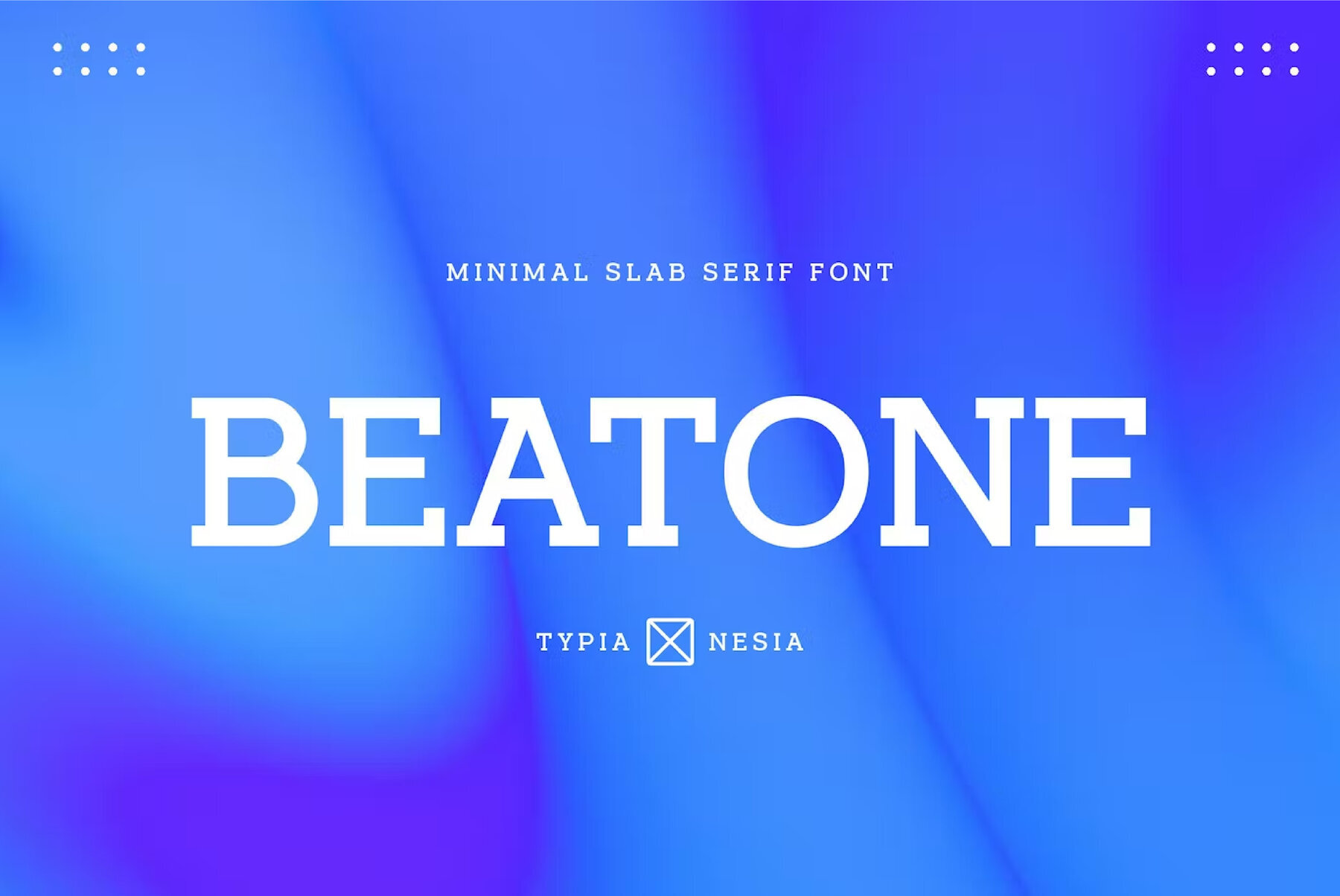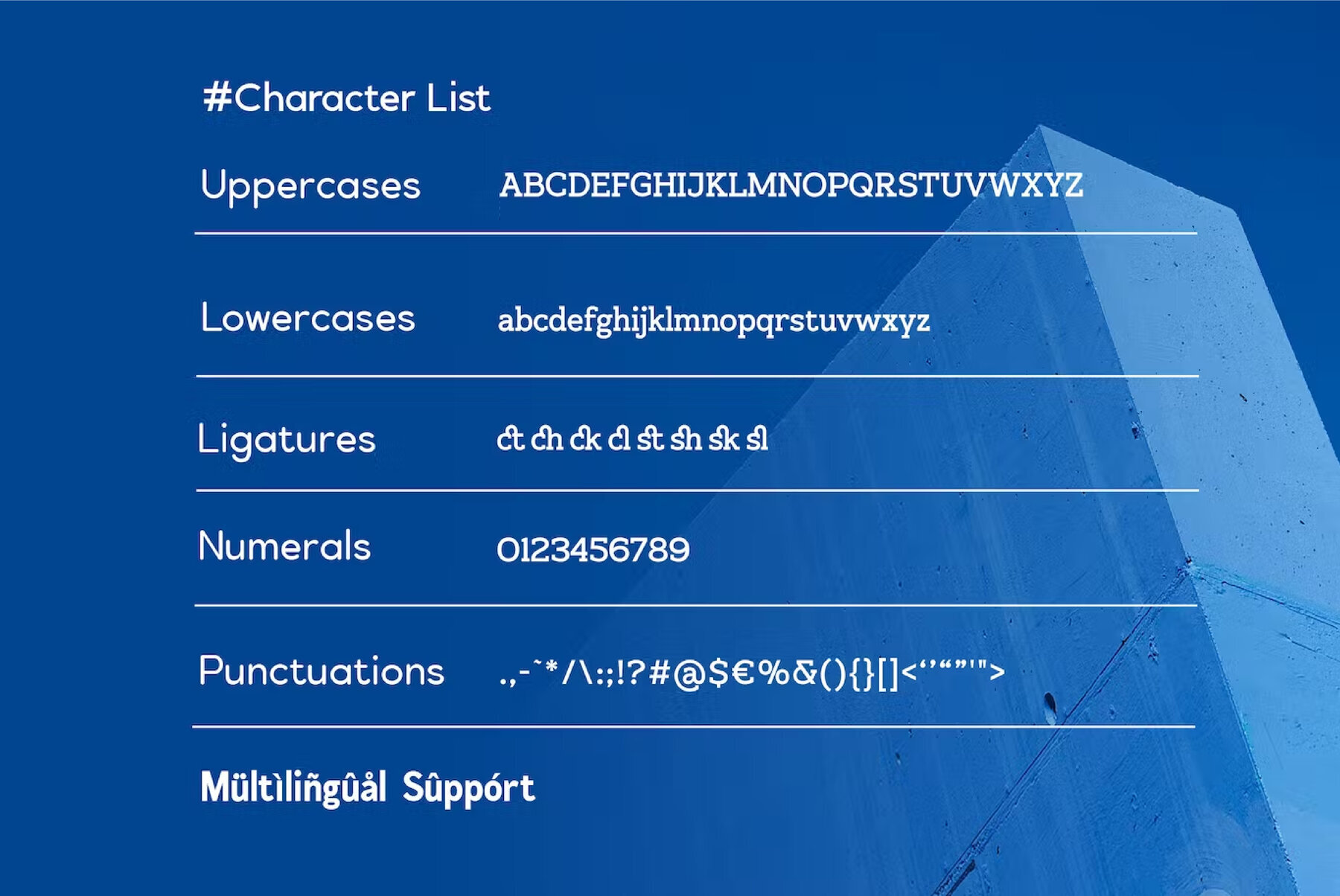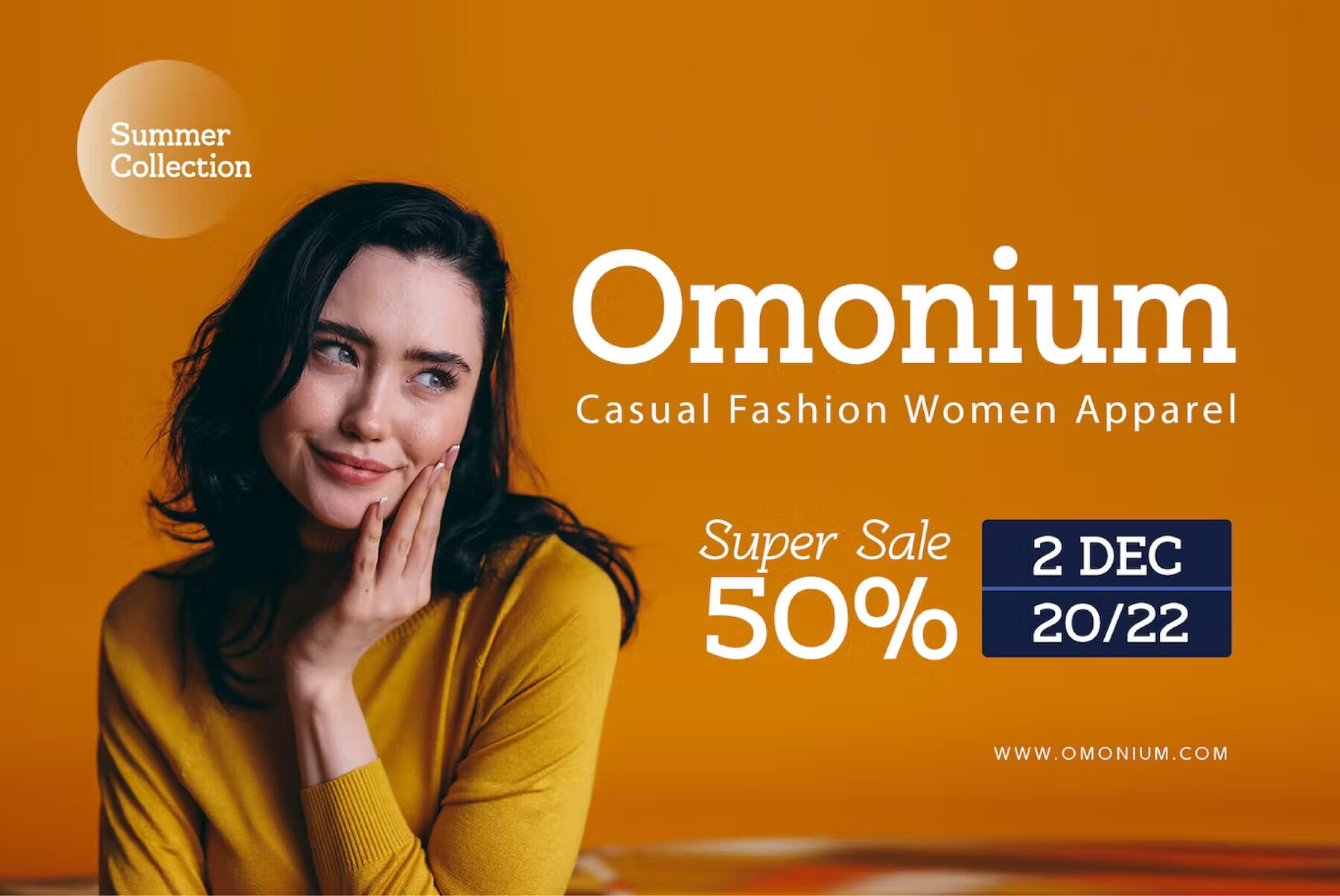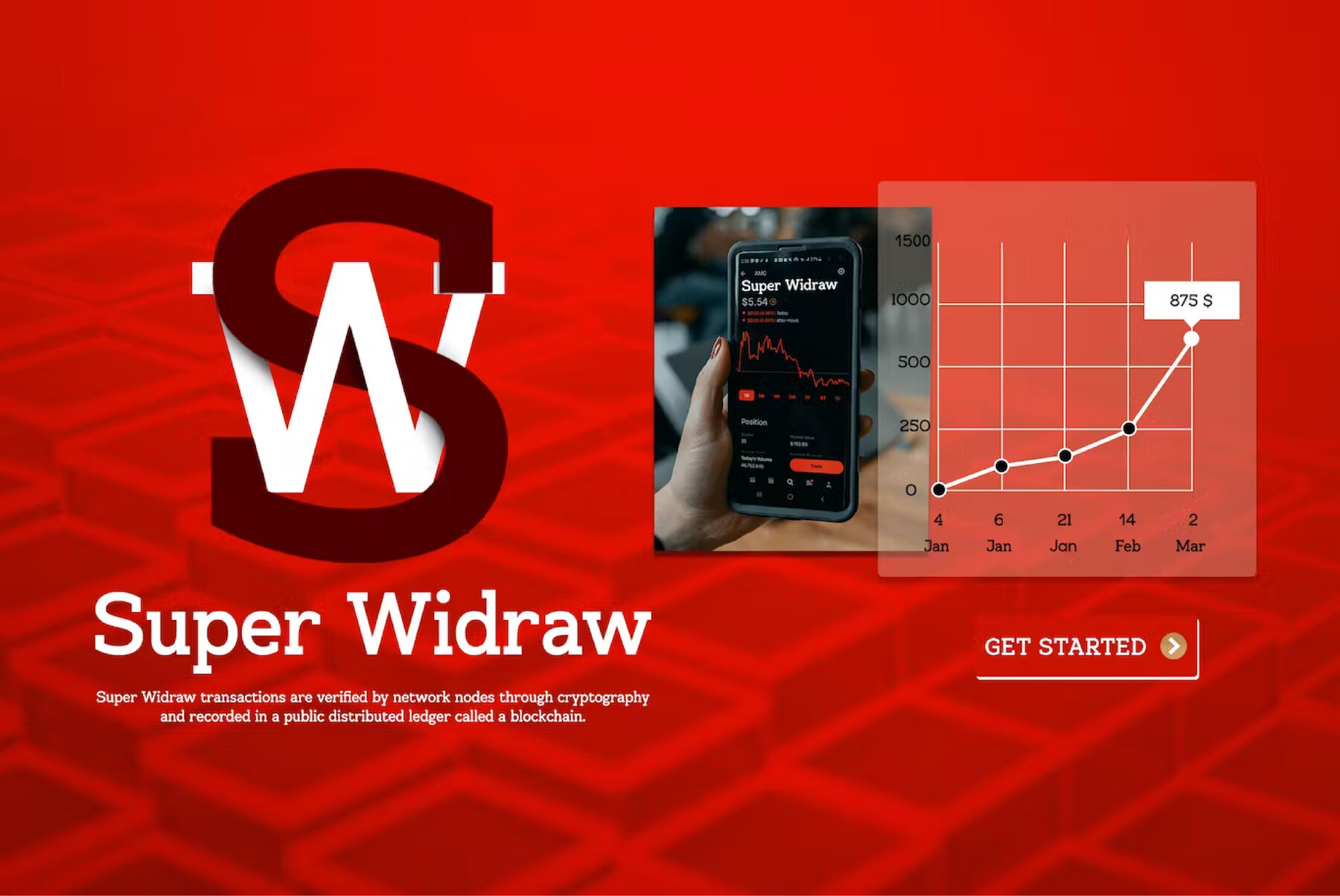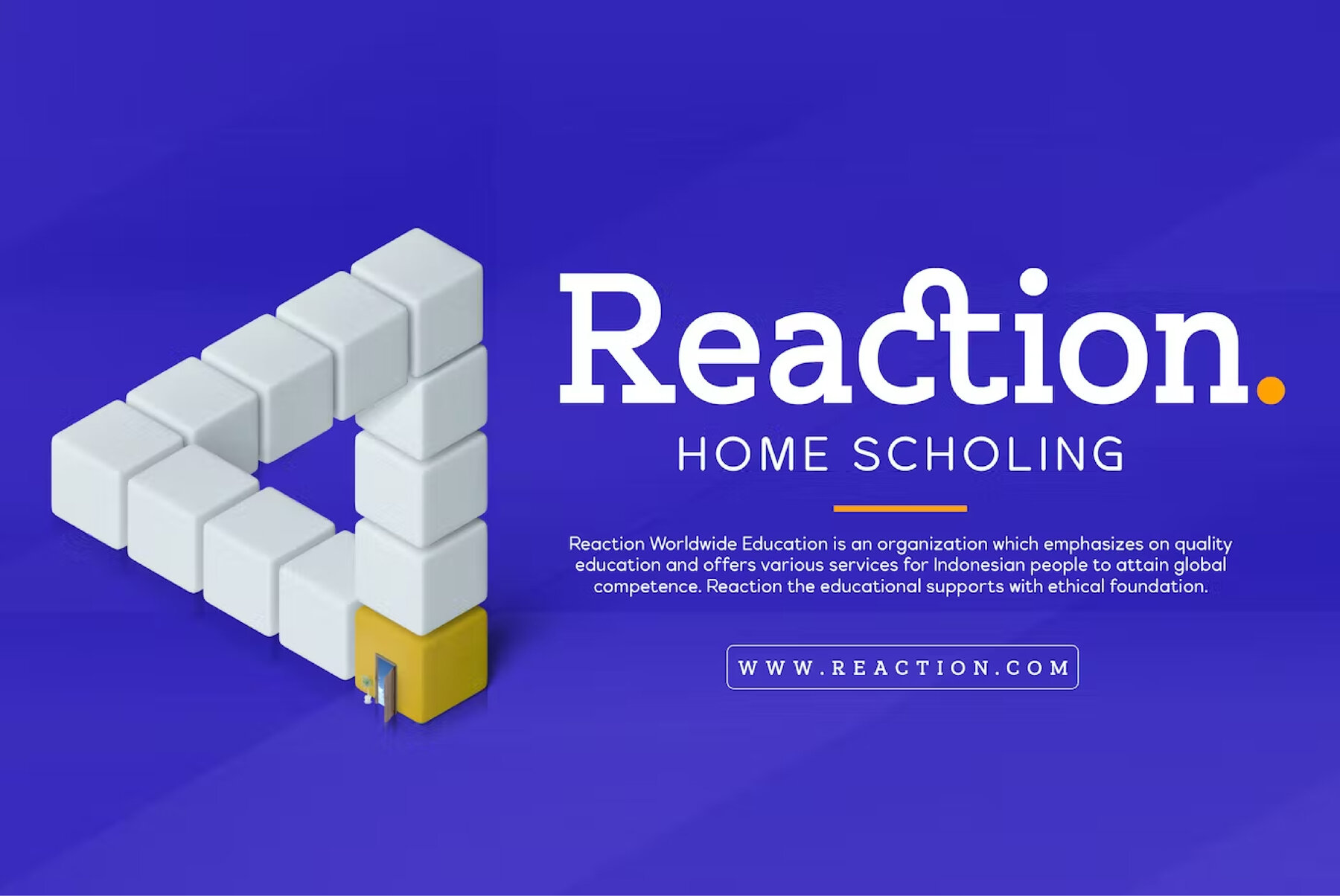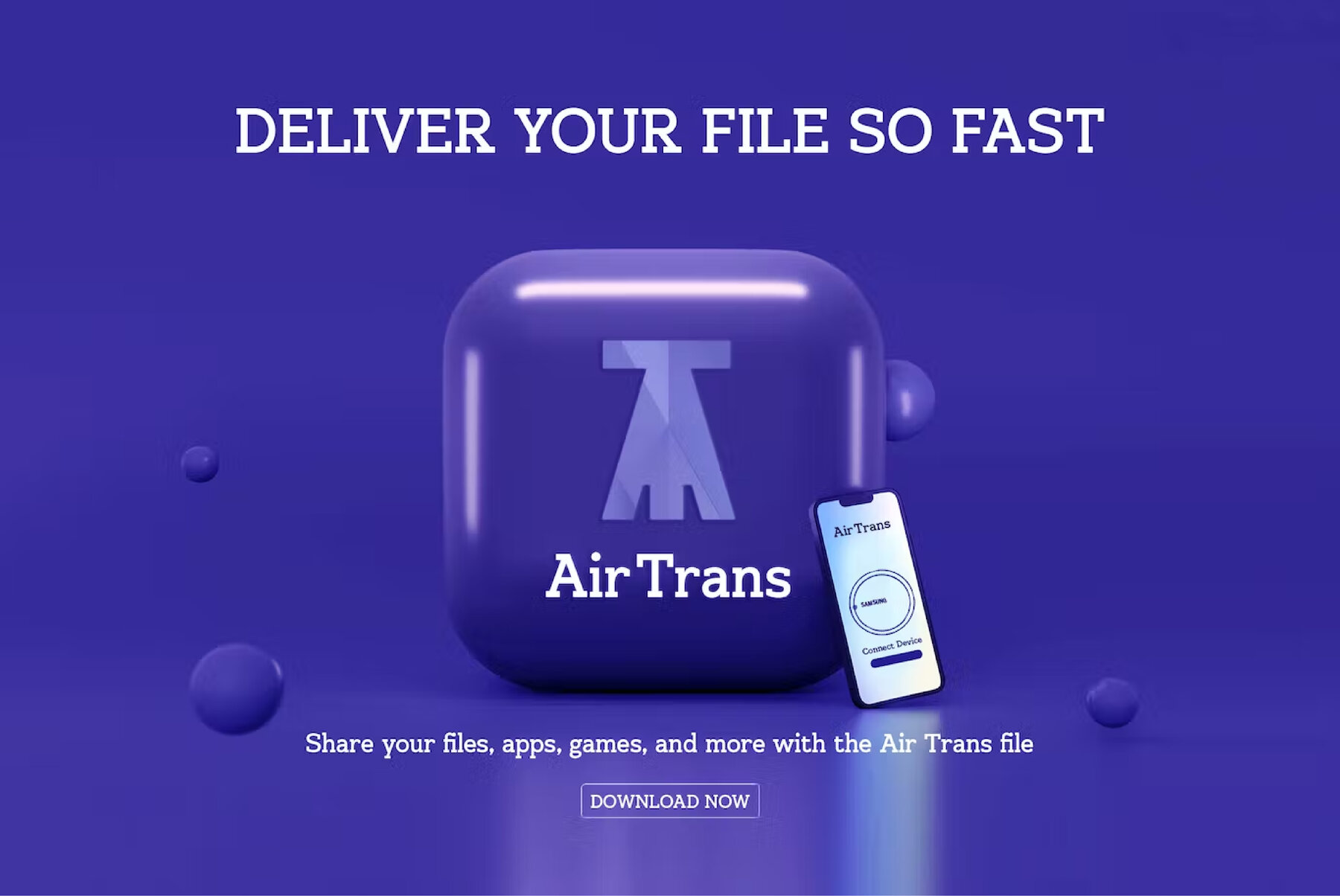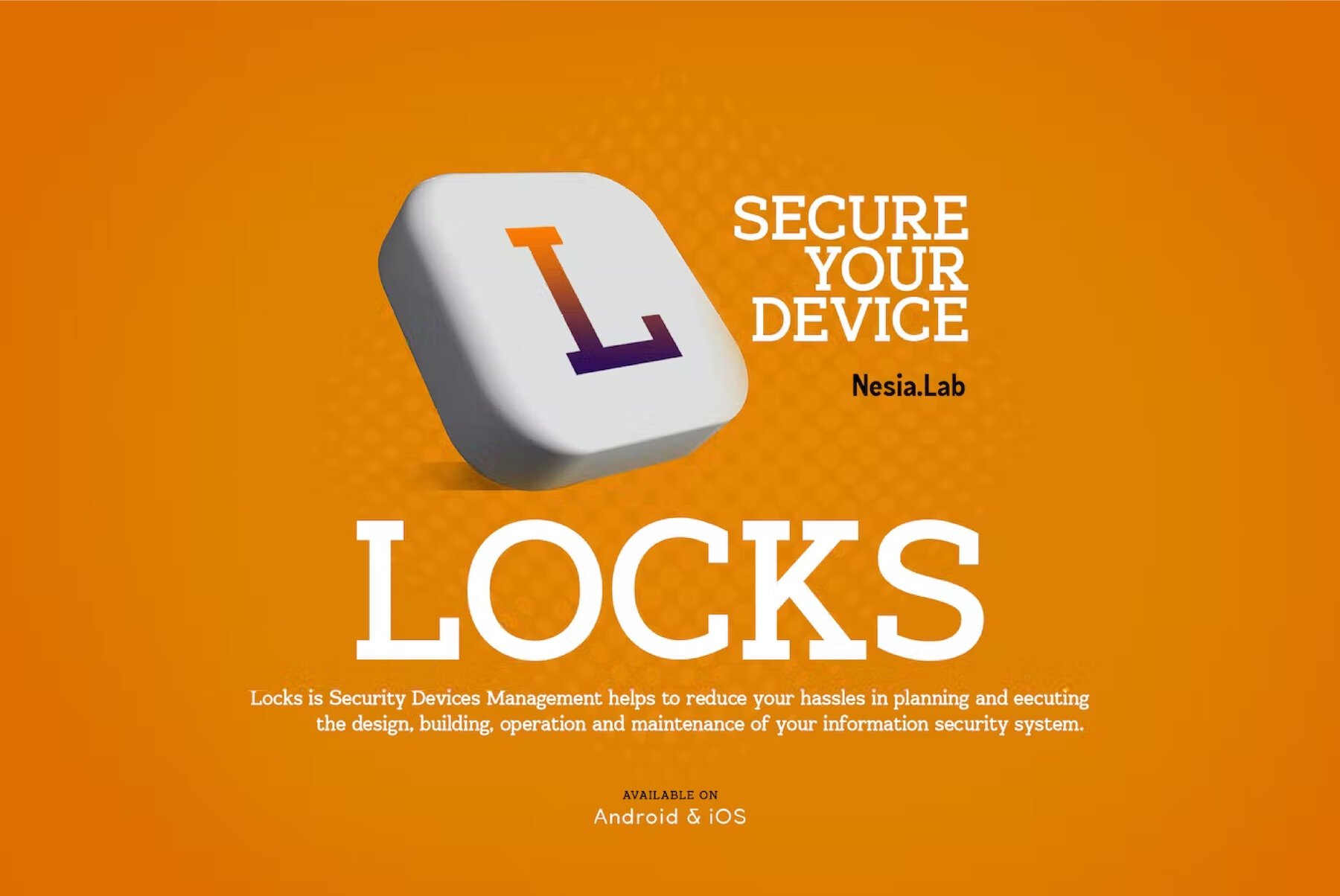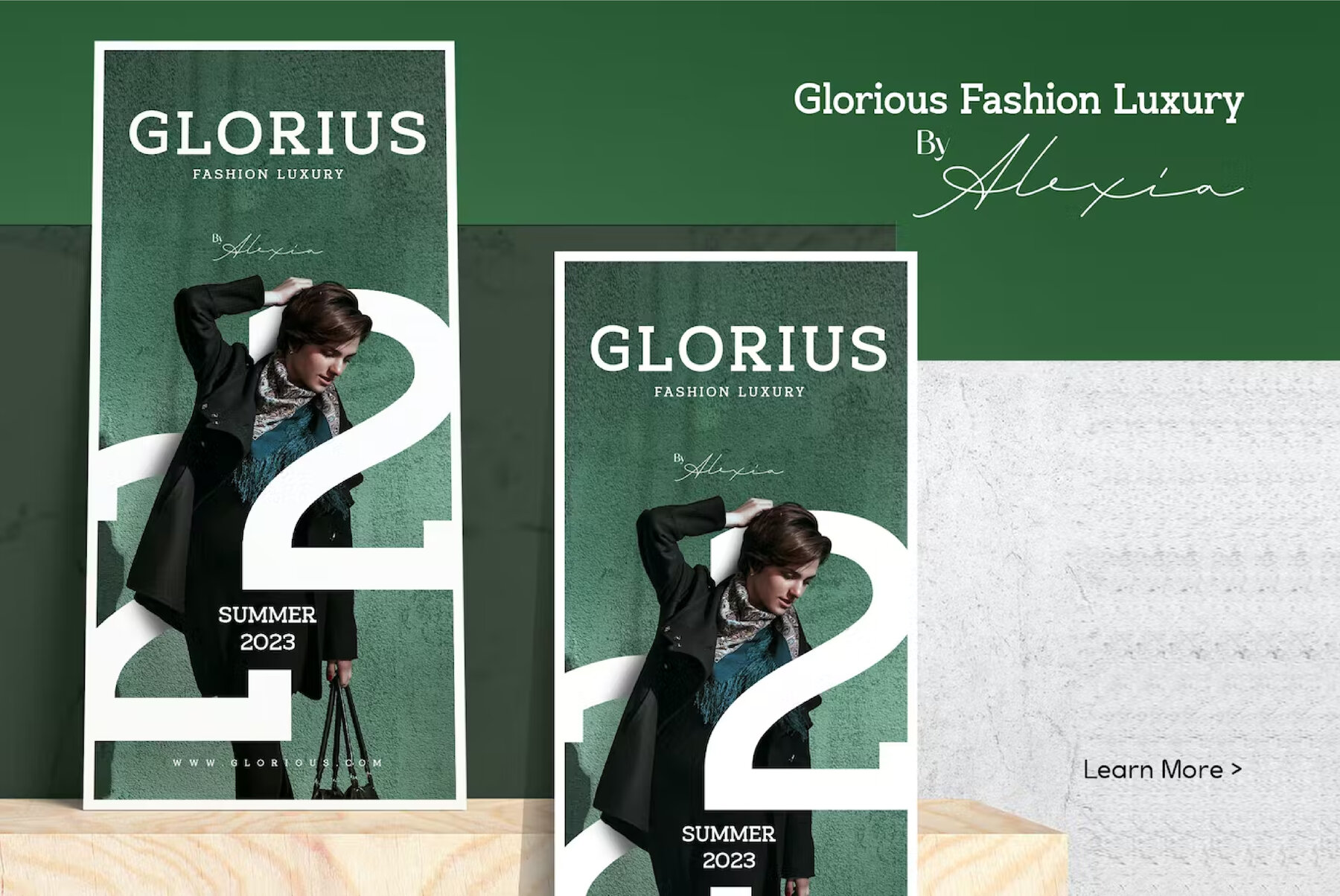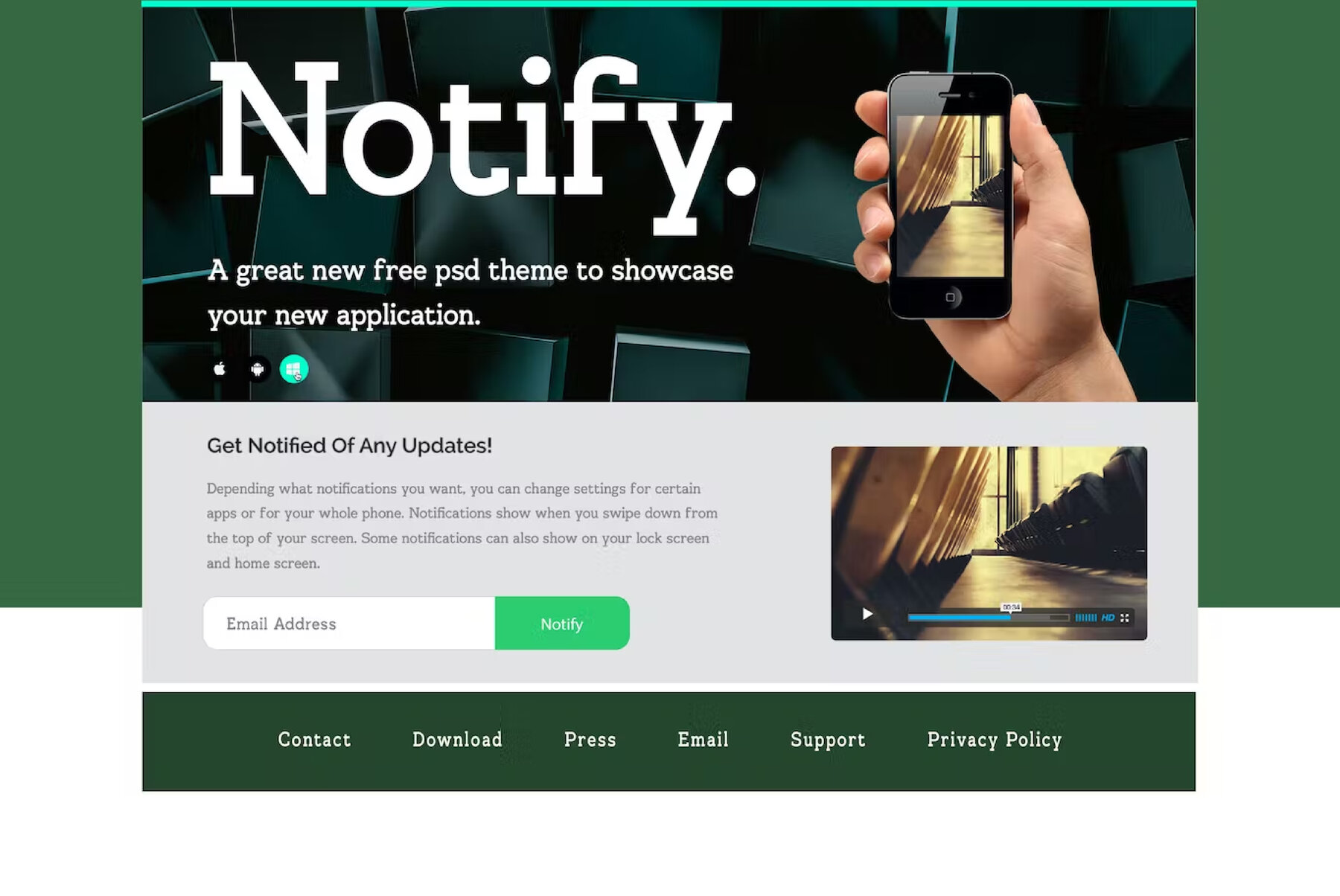
BEATONE Font
Beatone Regular
The Beatone font is an exemplary choice for projects demanding a refined yet contemporary aesthetic. Designed with clarity in mind, this slab serif typeface is versatile enough for various applications, including logo branding and editorial design. Its clean lines make it equally fitting for tech branding and digital music posters. Beatone integrates seamlessly into diverse design environments, enhancing both digital and physical spaces with its distinct style.Beatone: Minimalist Slab Serif for Modern Branding